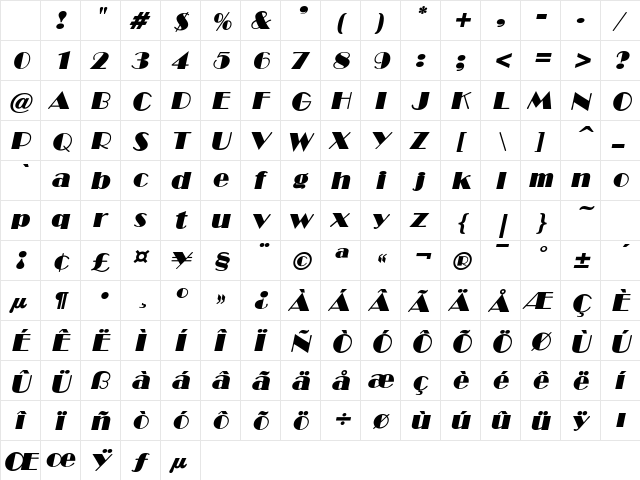
Complete NewYorkDeco HeavyOblique glyph index. Displaying only characters natively supported by NewYorkDeco HeavyOblique font.
NewYorkDeco is a composed and adaptable typeface that performs quietly and consistently across a wide range of design contexts. The slanted form adds forward momentum and visual energy.